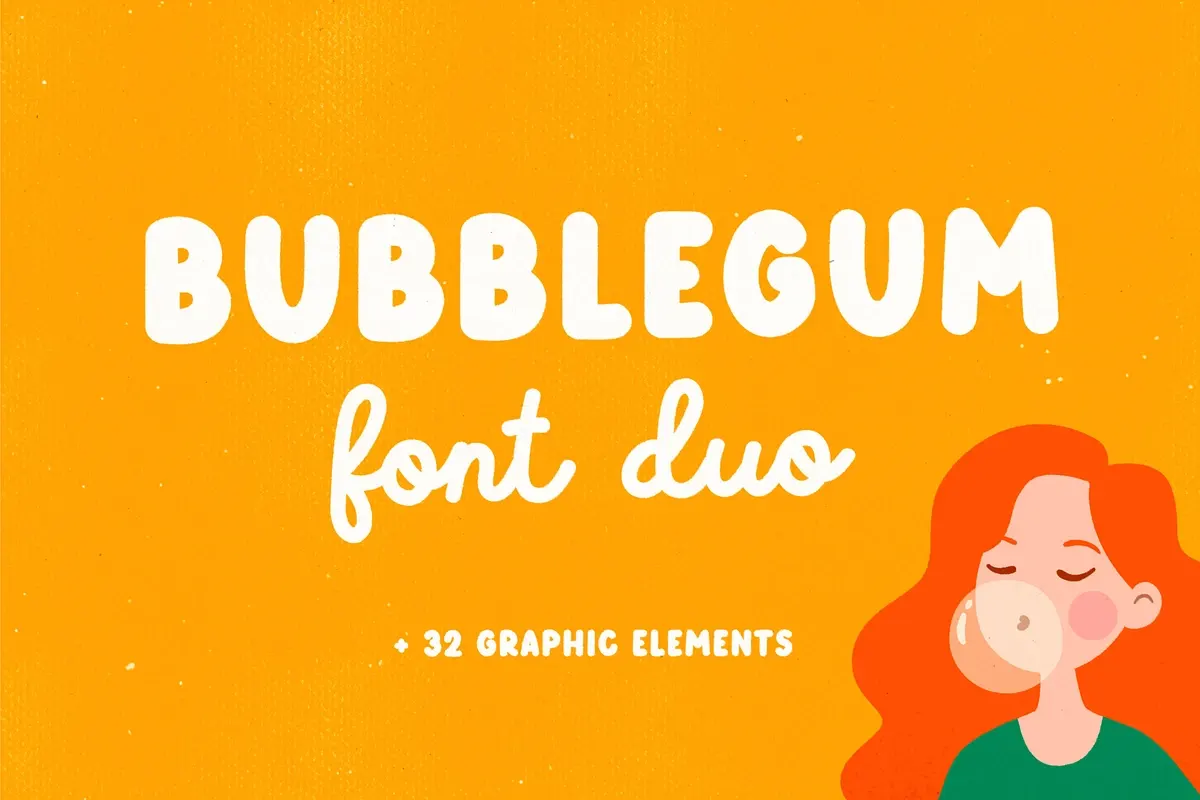
Bubblegum | Font duo Free Download
Bubblegum | Font Duo Free Download
The Bubblegum | Font Duo Free Download is a playful and stylish font pair that combines a fun script font with a clean sans-serif typeface. Perfect for a variety of creative projects, this font duo adds a lighthearted and modern touch to logos, branding, social media graphics, invitations, and more. The Bubblegum script brings a carefree, handwritten feel, while the sans-serif font offers a sleek, minimalist design, making it a versatile choice for both casual and professional applications. Please note, for commercial use, a license purchase is required. However, you can easily download the Bubblegum | Font Duo Free Download for free for personal use and explore its creative potential. Download the Bubblegum | Font Duo Free Download today and bring a playful, modern flair to your designs.